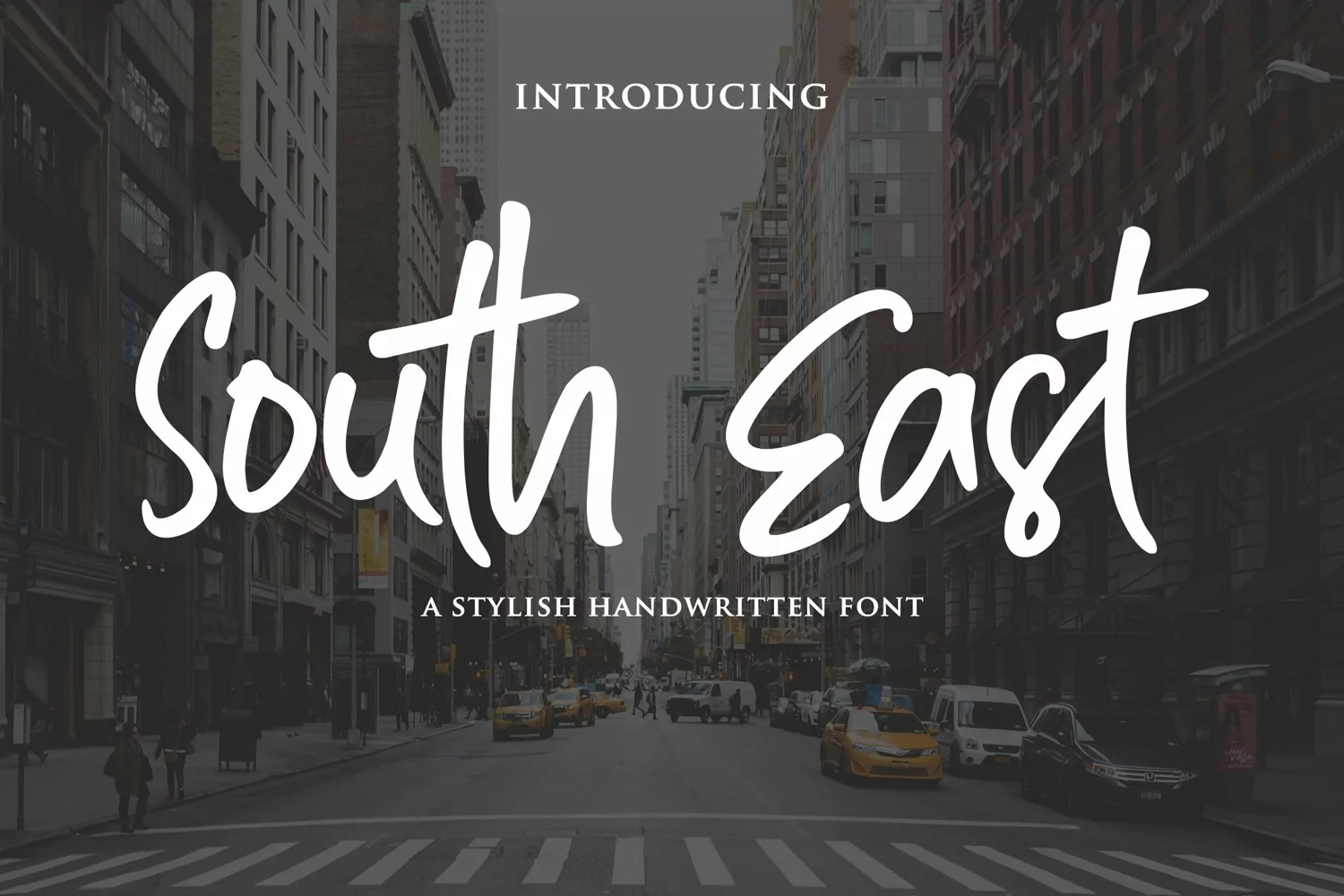
South East
It's name South East.
South East is styish handwritten font. South East looks original and can be used for all your project needs.
South East would perfect for Youtube Cover or Youtube Tumbnails, flyer sport, mockup,tote bag, kid`s book, scrapbook, logo, icon, phrases or quotes for winter greeting cards ( Halloween, Christmas or New Year holidays), photo overlay, short phrases, children’s book, gift shops tag, presentation in social media Pinterest, Instagram, Facebook or others.